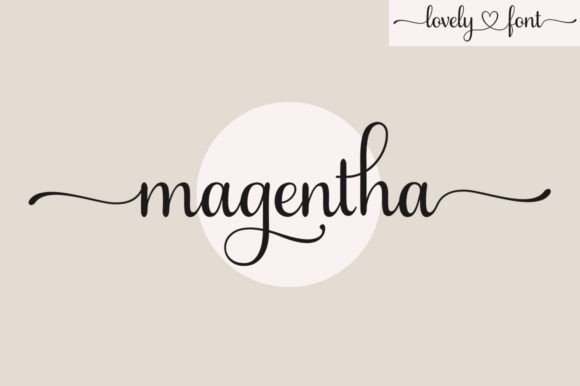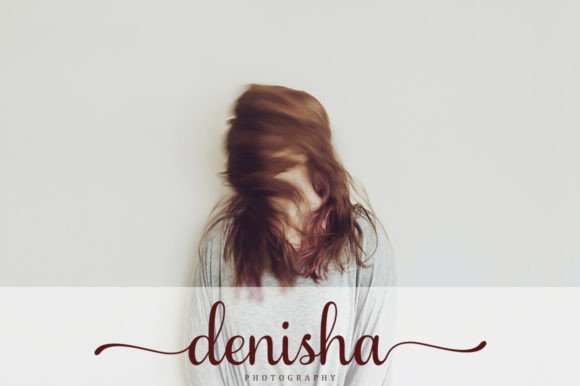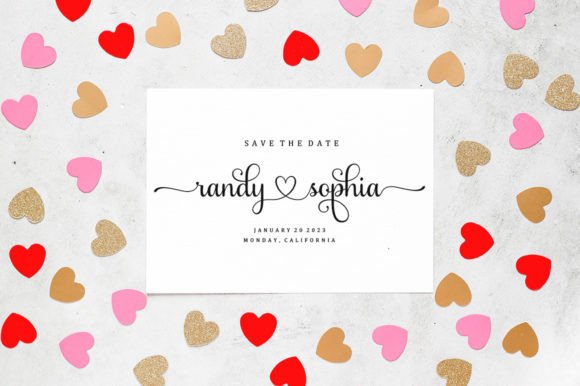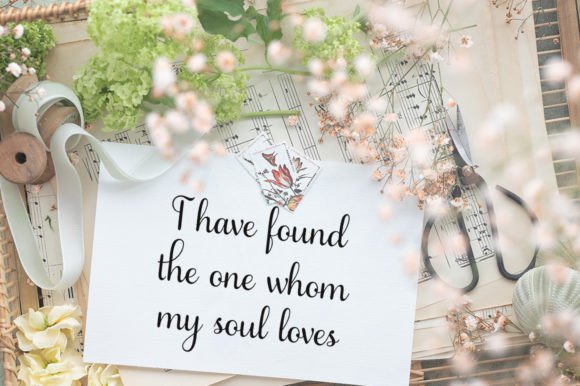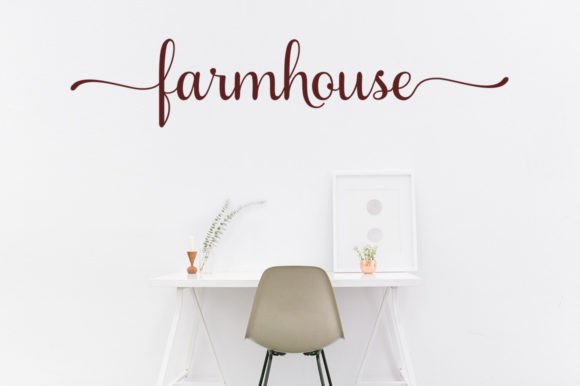
About Magentha Font
Magentha is a romantic and sweet calligraphy typeface with characters that dance along the baseline. It has a casual, yet elegant touch. This font is PUA encoded which means you can access all of the glyphs and swashes with ease!